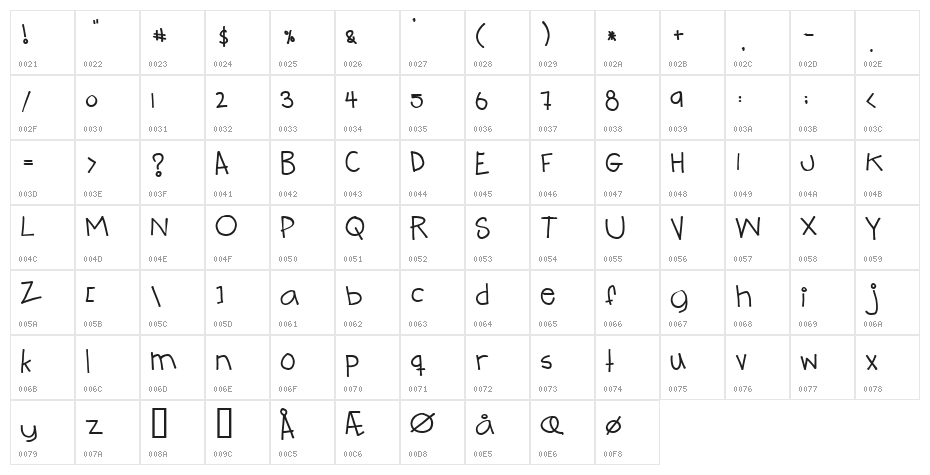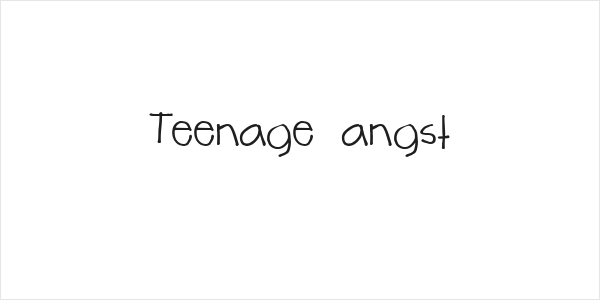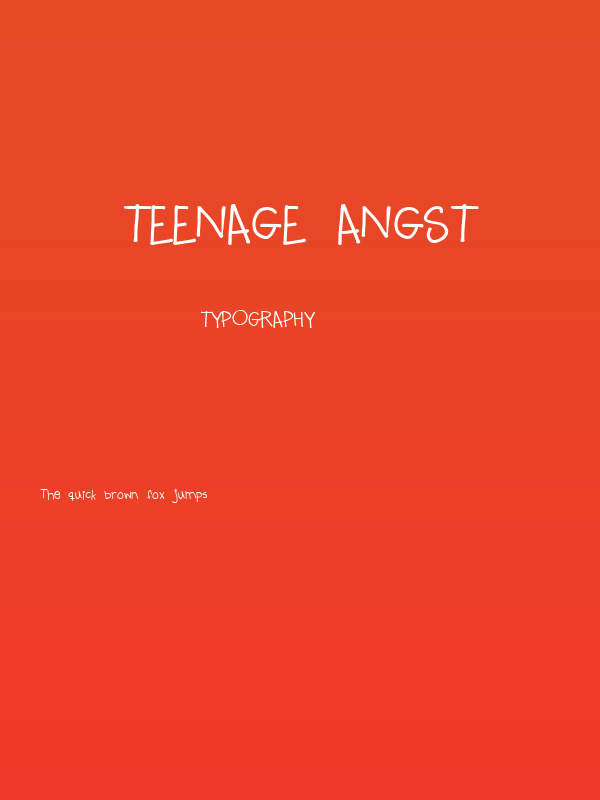
Teenage angst Font
Teenage angst Description
This playful and energetic font features a hand-drawn, casual style that exudes a youthful and carefree vibe. The letters are slightly irregular, with varying stroke widths that add a sense of spontaneity and movement. The uppercase and lowercase characters maintain a consistent height, while the numbers and special characters blend seamlessly into the overall design. The font's informal nature makes it ideal for projects that require a touch of whimsy and creativity. Its unique character shapes and lively appearance make it stand out, perfect for capturing attention in a fun and engaging way.
| Use Case | Headlines, Informal Text, Creative Projects |
| Proposed Projects | Ideal for children's books, playful branding, casual invitations, and creative social media graphics. |